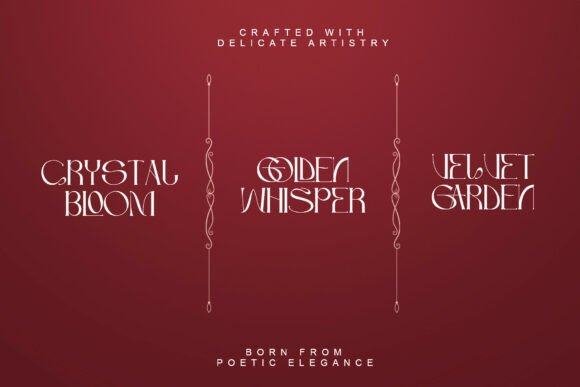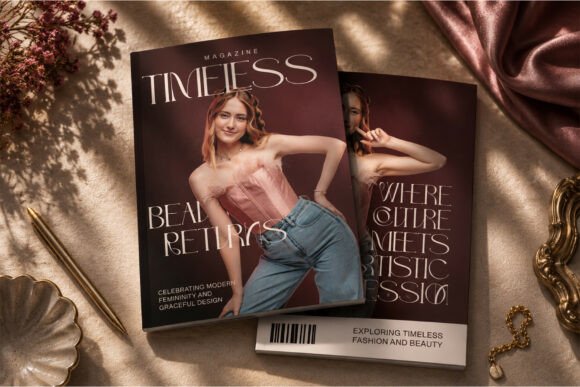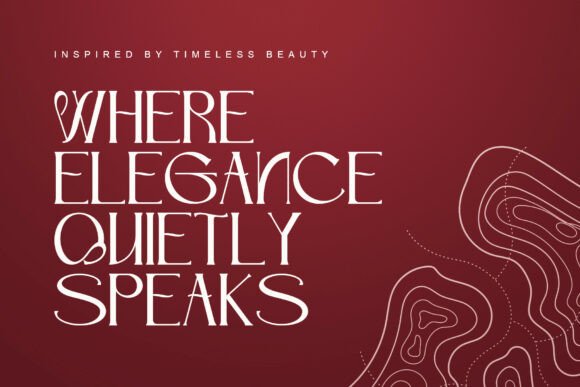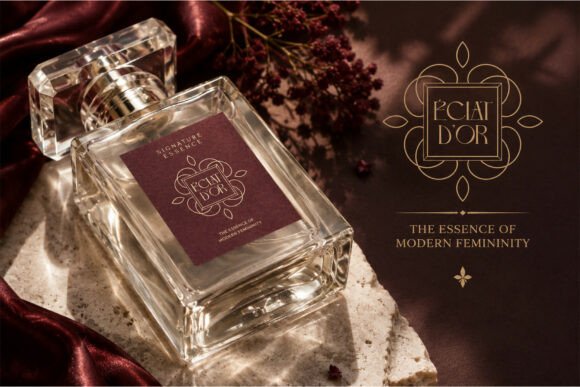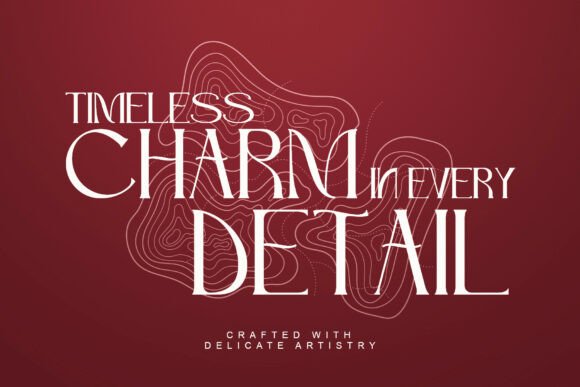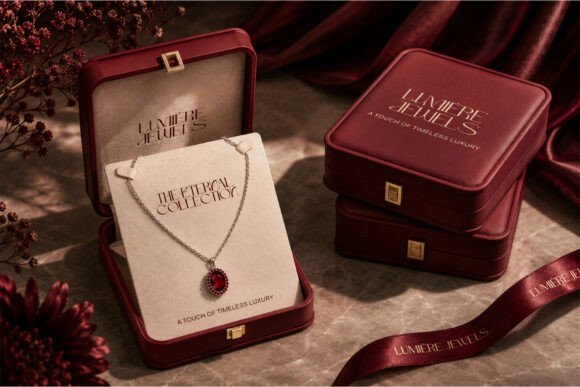
Introduction to Arunela Font
Arunela is an elegant luxury display serif designed to bring sophistication, clarity, and artistic character into modern typography.
With its refined letterforms, graceful curves, and balanced serif structure, this typeface creates a strong visual presence that feels timeless, professional, and distinctive, making it an excellent choice for premium branding, editorial design, packaging, corporate identity, and high-end visual presentations that require both beauty and authority .